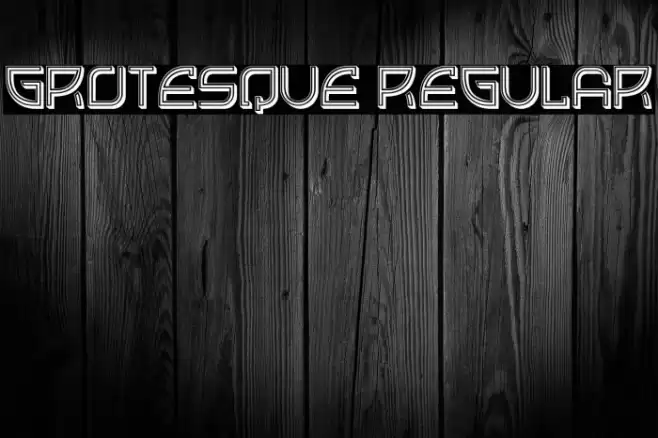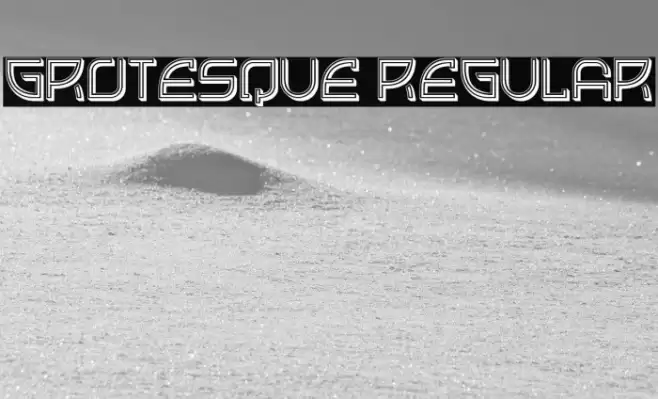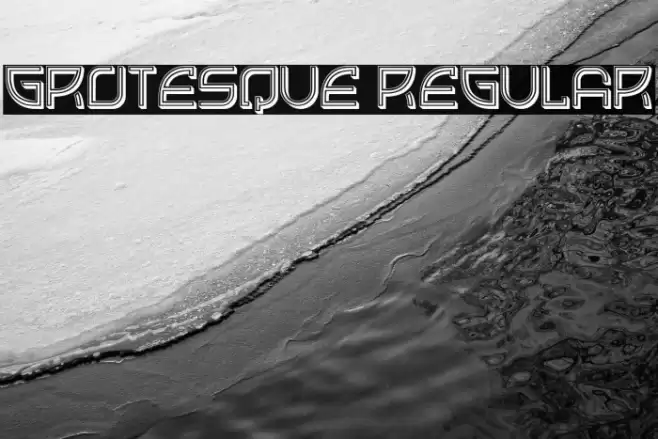
Grotesque Regular Font
Grotesque Regular Description
This font features a bold, futuristic design with a double-line structure that creates a striking visual effect. The characters are geometric and angular, with a consistent width and a unique, modern aesthetic. The uppercase and lowercase letters maintain a uniform style, while the numbers and special characters complement the overall design. The font's distinct appearance makes it ideal for projects that require a contemporary and eye-catching look.
A bold, futuristic font with a double-line geometric design from Uncategorized fonts.
- Font: Grotesque Regular
- Proposed Projects: Ideal for sci-fi themed designs, modern branding, technology-related projects, and eye-catching headlines.